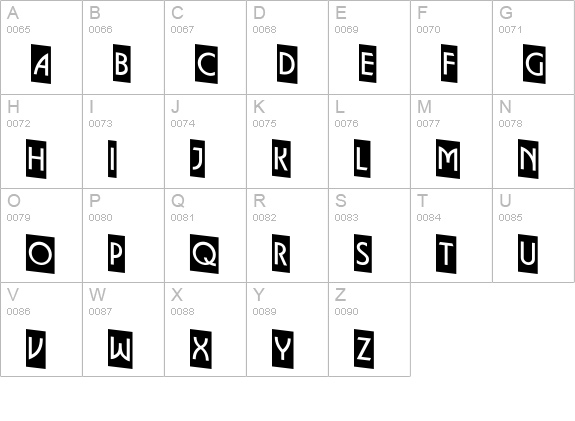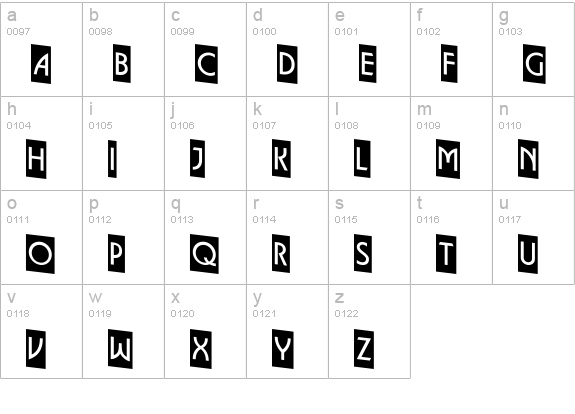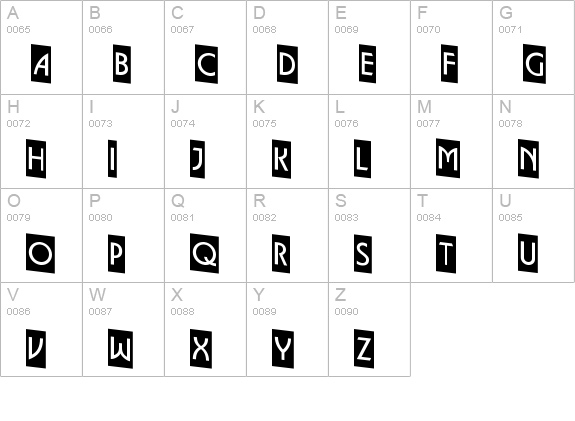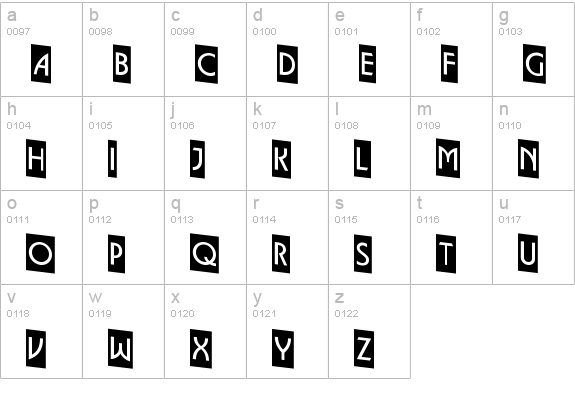
a_LancetCmDn Font Details
Introducing LancetCmDn, a sleek and modern font that exudes sophistication and elegance. With its clean lines and sharp edges, LancetCmDn is perfect for conveying a sense of professionalism and refinement in your designs. This versatile font is well-suited for a variety of projects, from branding to editorial design. The best part? LancetCmDn is completely free to download at FontsMarket.com. Get your hands on this exquisite font today and elevate your projects with its timeless appeal and distinctive style.